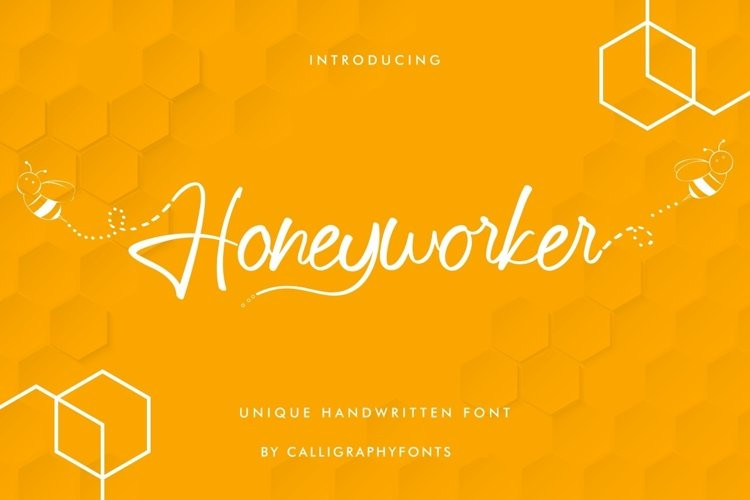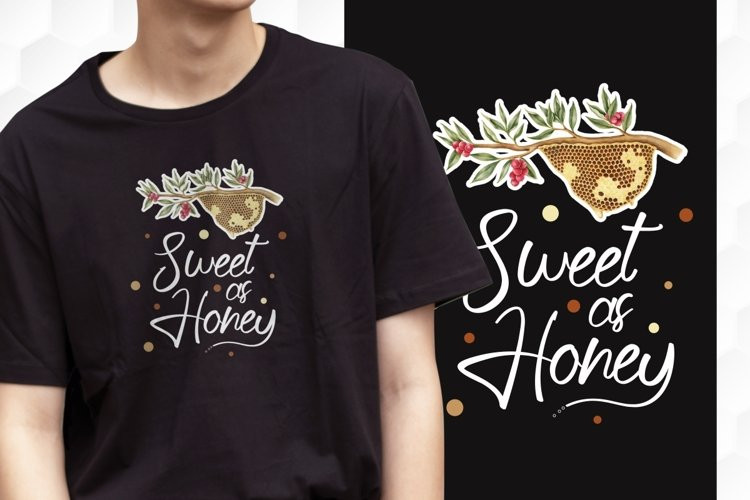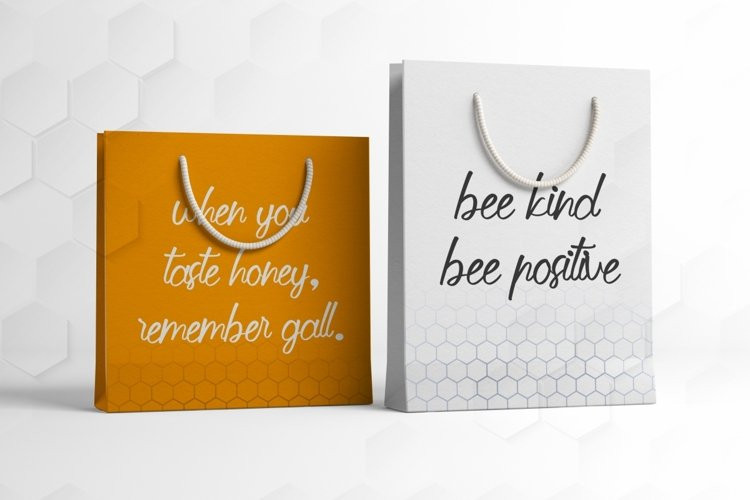
Honeyworker Font
Honeyworker is a unique Handwriting calligraphy font. It can be used for many themes from fun to corporate brandings. The Honeyworker Font will be awesome for events, cosmetic, beauty, spa, brands, packaging, invitation, games. etc